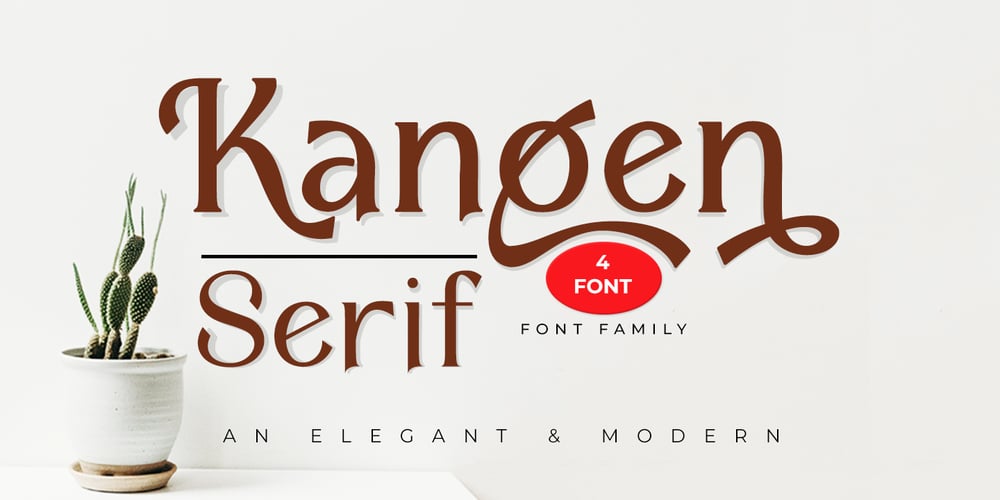
Kangen Serif Font Family was designed by Kurniadi Saputra and published by Cooldesignlab. Kangen Serif contains 4 styles and family package options. “Kangen Serif ” is a powerful neoclassical font family designed for a variety of uses — from editorial and corporate design to web, interaction, and product design. It’s a contemporary look with high-contrast typography that never goes out of style — defined by elegance, tradition, and timelessness. Although “Kangen Serif ” seems like a display font at first glance, its proportions and design convey hard work and strong character.